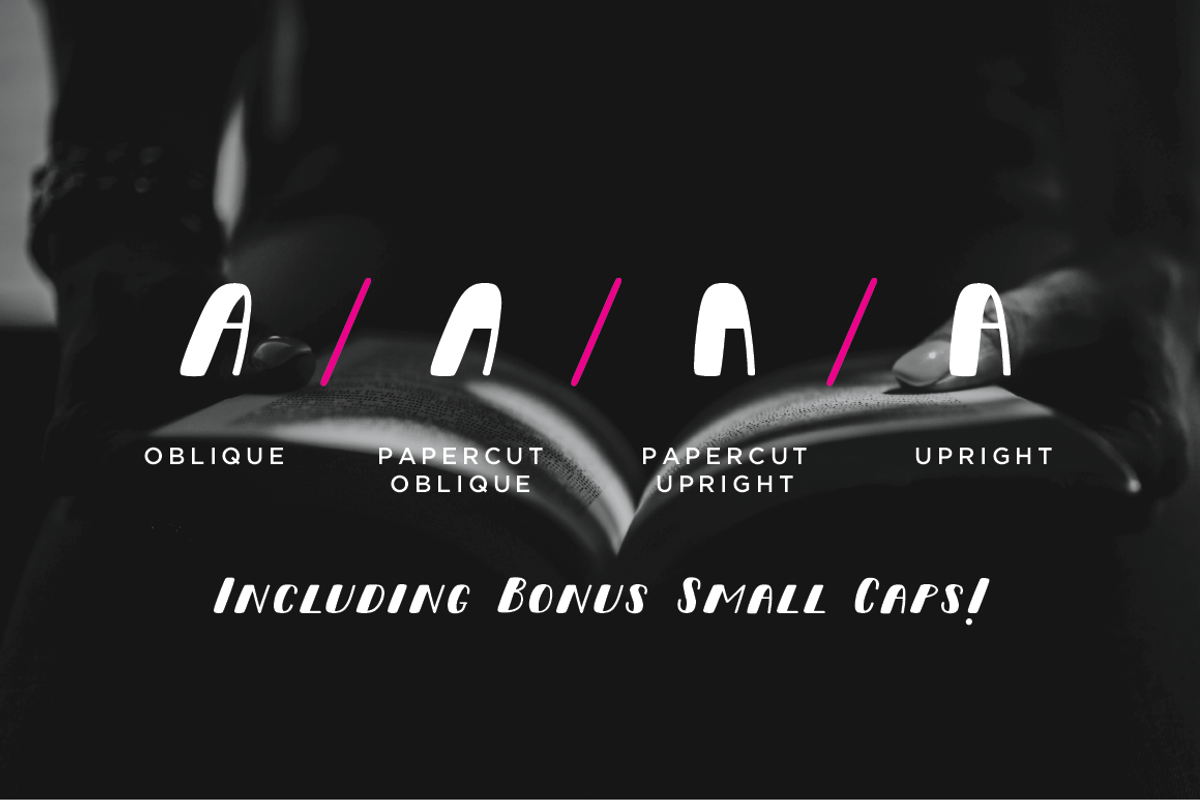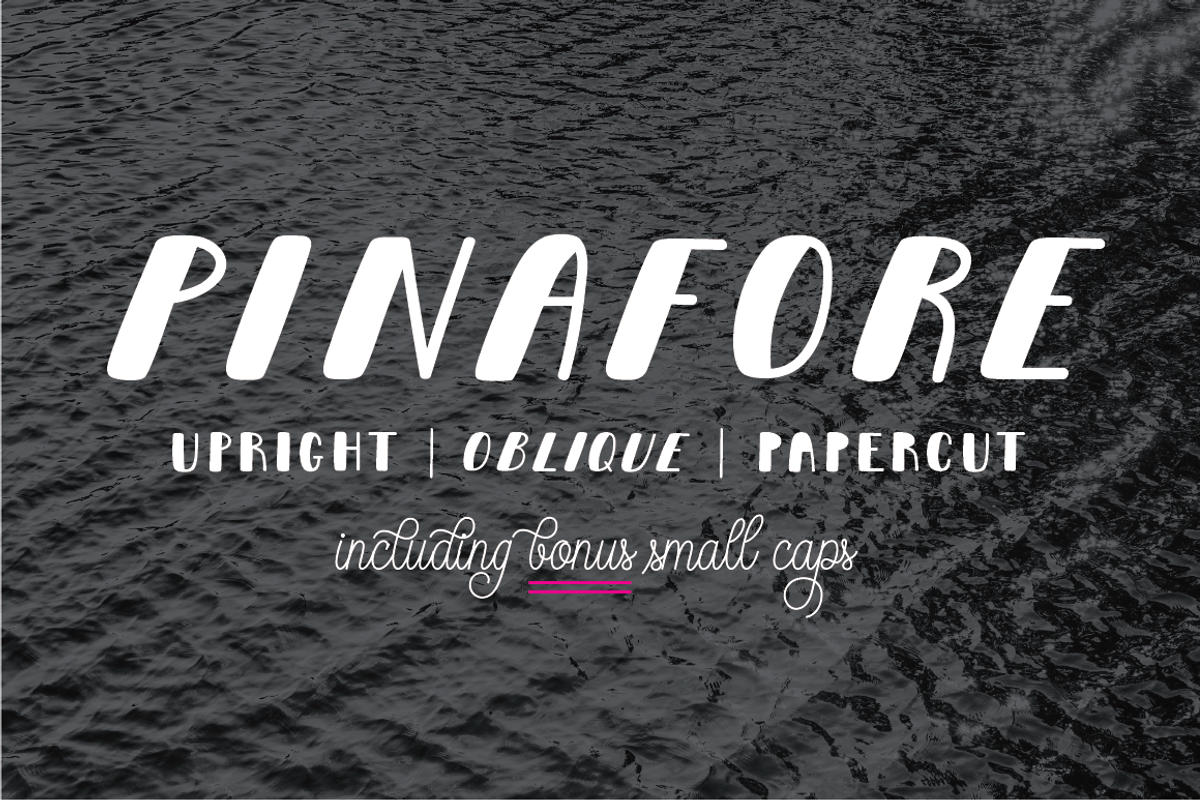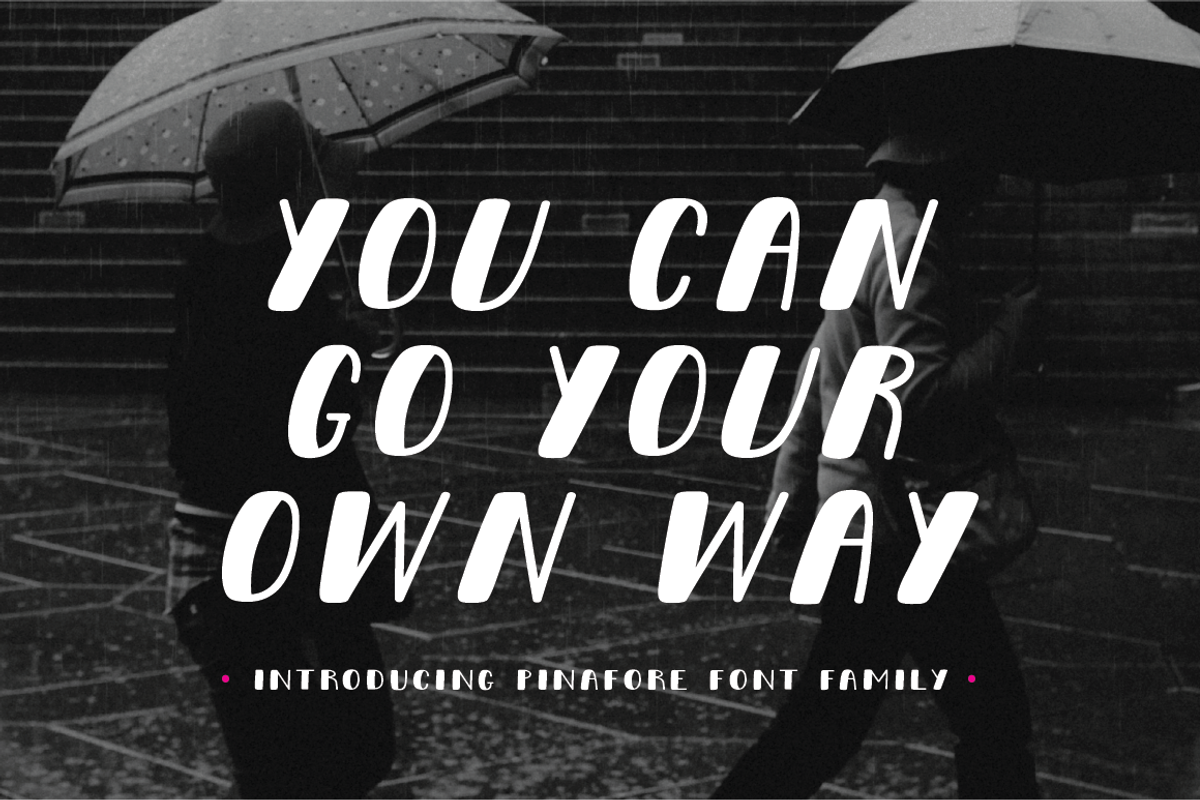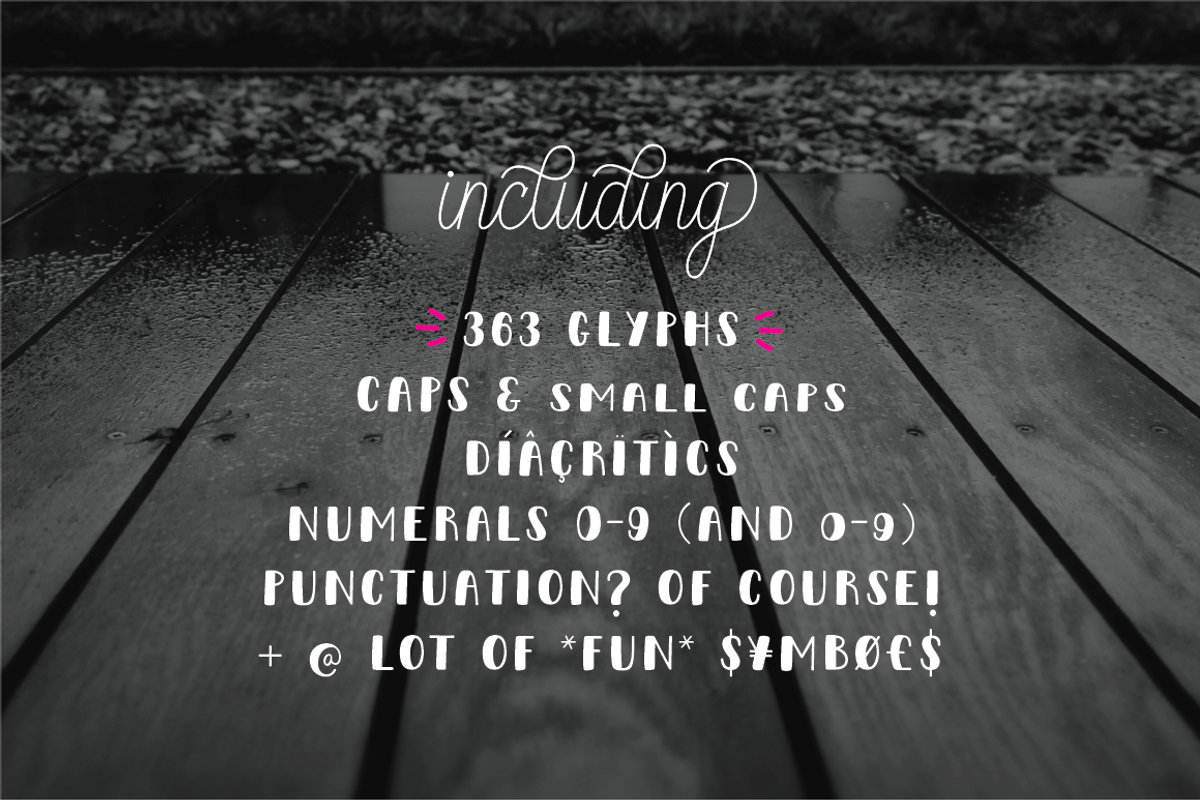
Pinafore Display Font Family
Pinafore Display Font Family by Up Up Creative is a font selected for branding, posters, packaging, typography.
- It includes 363 glyphs such as small caps (see note below for more on this), multilingual support (including multiple currency symbols), an
- In these files, the regular caps are accessed by typing capital letters and the small caps are accessed by typing lowercase letters.
Why Pinafore Display Font Family is worth a look
Pinafore Display Font Family by Up Up Creative fits naturally into Branding, posters, packaging, typography.